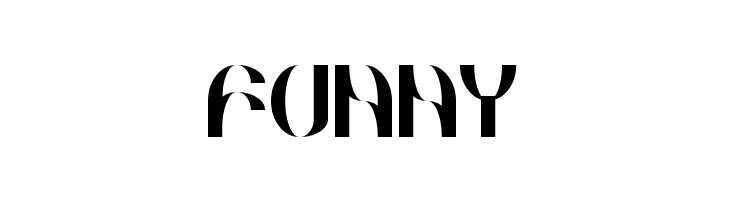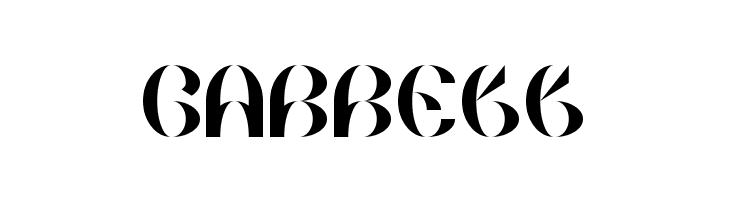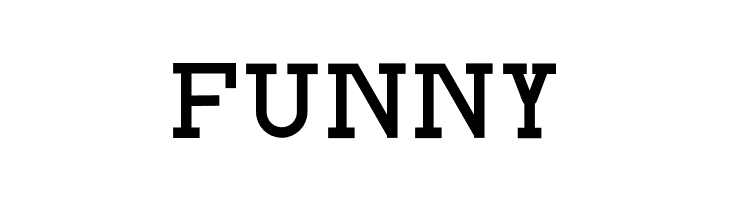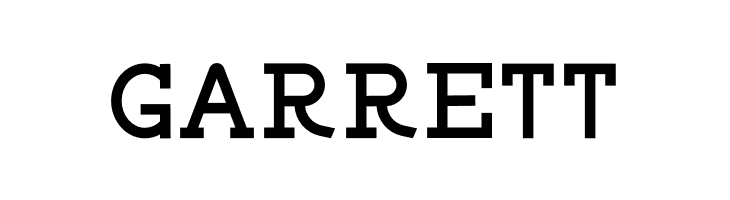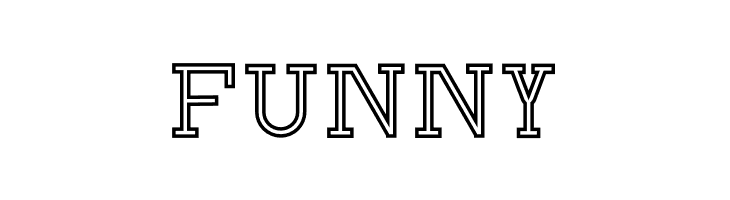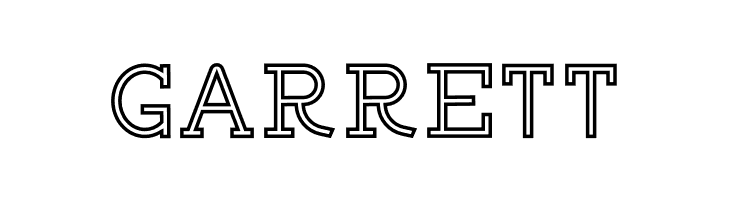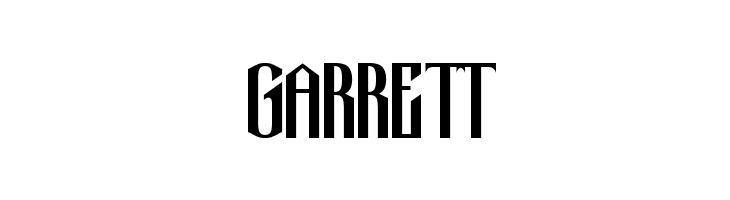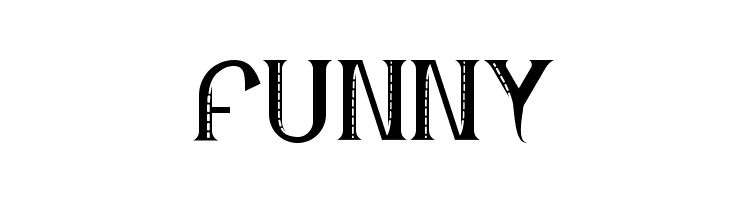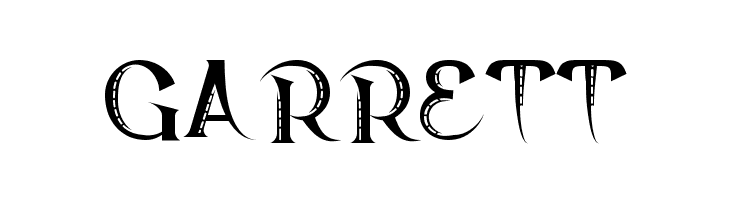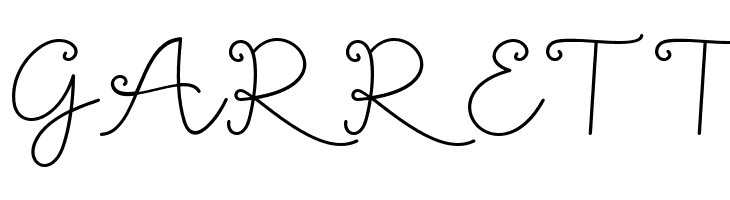
An elegant and flowing script font with graceful curves and decorative flourishes.
A bold, condensed font with strong strokes and a modern yet slightly vintage feel.
A bold, contour-styled font with a three-dimensional effect.
A collection of whimsical and playful doodles, each with a unique, hand-drawn illustration.
Playful hand-drawn doodle character font.
A dynamic and fluid script font with elegant, flowing letterforms.
A delicate and elegant handwritten font with flowing, interconnected letterforms.
A bold slab serif font with strong, block-like serifs and a robust presence.
An outline font with a bold, geometric style and double-line effect.
A decorative font with high contrast and intricate detailing, blending modern and vintage styles.
A whimsical and flowing script font with elegant, fluid letterforms.
A playful, bold font with rounded edges and a hand-drawn feel.
A bold, modern font with tall, narrow characters and a sleek design.
A bold, playful handwritten font with a casual and friendly style.
A dynamic and expressive handwritten font with fluid strokes and natural rhythm.
A playful and elegant script font with flowing, connected letterforms.
A graceful, flowing script font with elegant, connected strokes and an italic style.
A decorative font with medieval and fantasy-inspired elements.
A bold, distressed font with a rugged, handmade appearance.
A decorative font with vine-like embellishments and organic flourishes.
A bold, expressive script font with a modern, handwritten style.
A bold, handwritten-style font with fluid, dynamic strokes.
A bold, geometric font with sharp, angular shapes.
A bold, geometric font with high contrast and sharp angles, perfect for dramatic designs.
A bold, sketch-like font with a dynamic, hand-drawn appearance.
A classic, calligraphic font with elegant, angular strokes.
A geometric, modular font with a futuristic and digital aesthetic.
A bold, pixelated font with a geometric and modern style.
A playful handwritten font with rounded edges and a whimsical style.